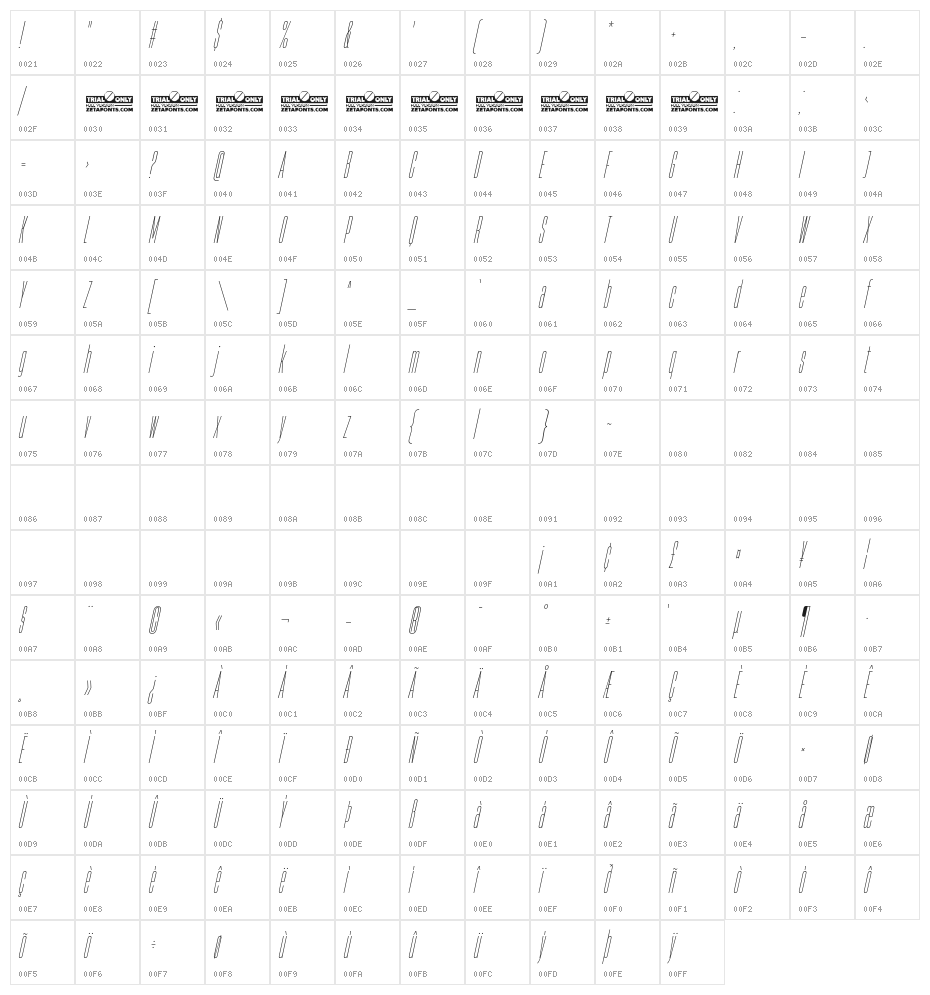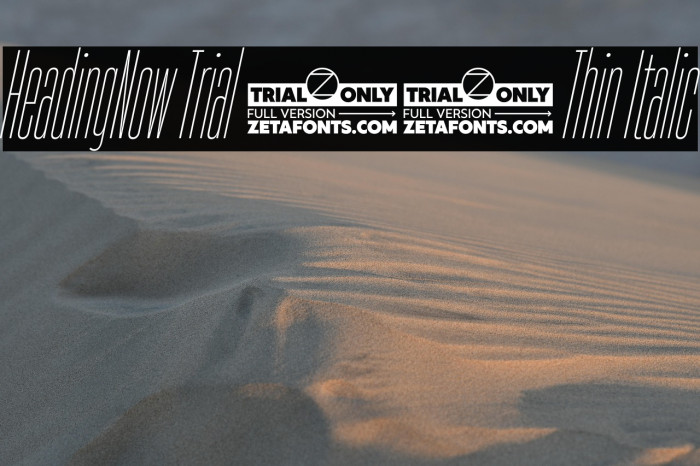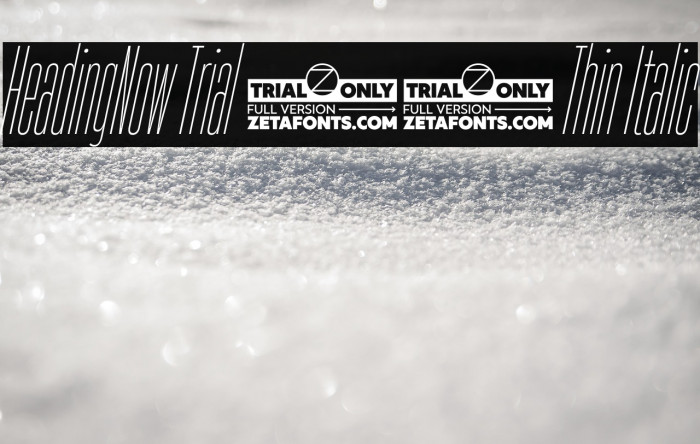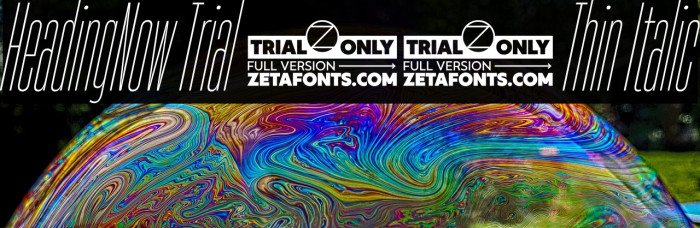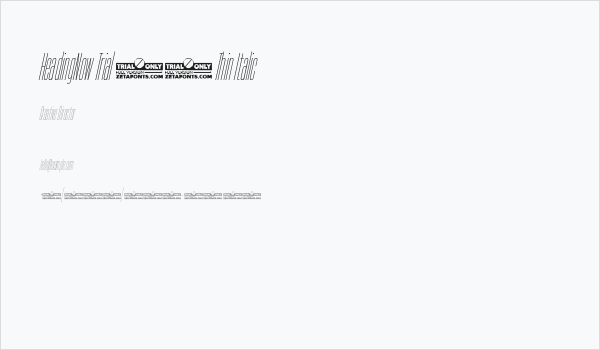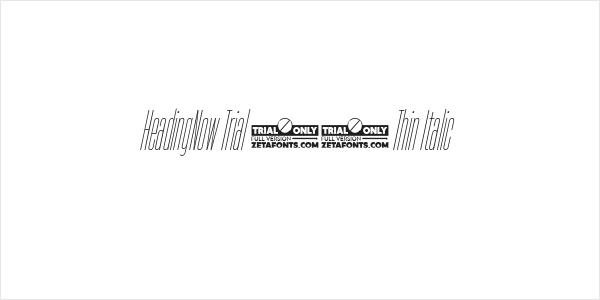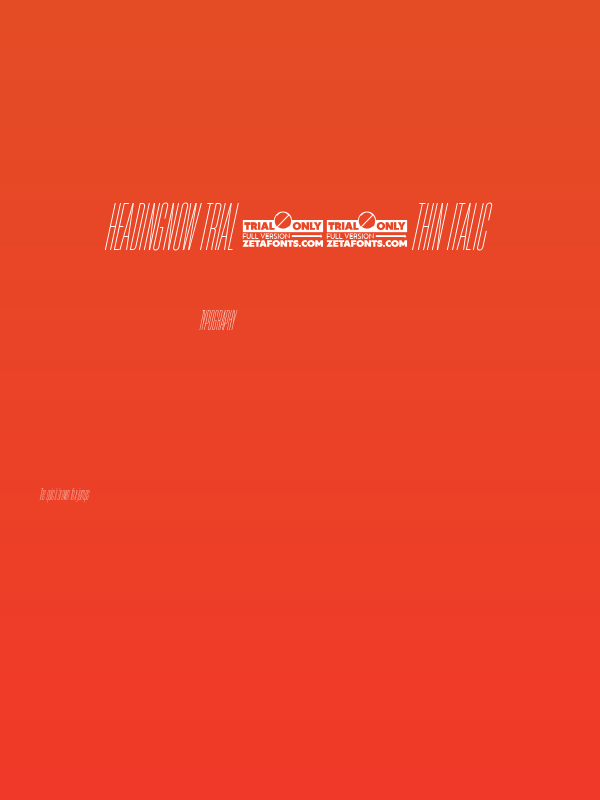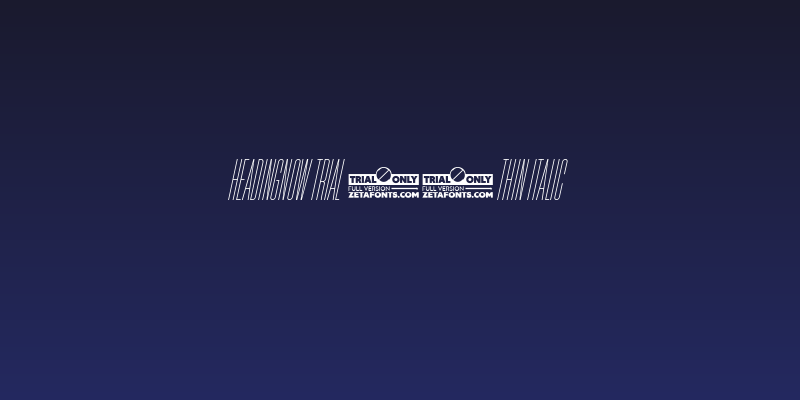
HeadingNow Trial 01 Thin Italic Font
HeadingNow Trial 01 Thin Italic Description
This font features a sleek and modern design with a thin, elongated structure. The italic style adds a dynamic and elegant touch, making it suitable for contemporary projects. The characters are tall and narrow, with a consistent stroke width that gives it a refined and sophisticated appearance. The uppercase and lowercase letters maintain a uniform height, contributing to its streamlined look. The special characters and numbers are designed to match the overall aesthetic, ensuring a cohesive visual experience.